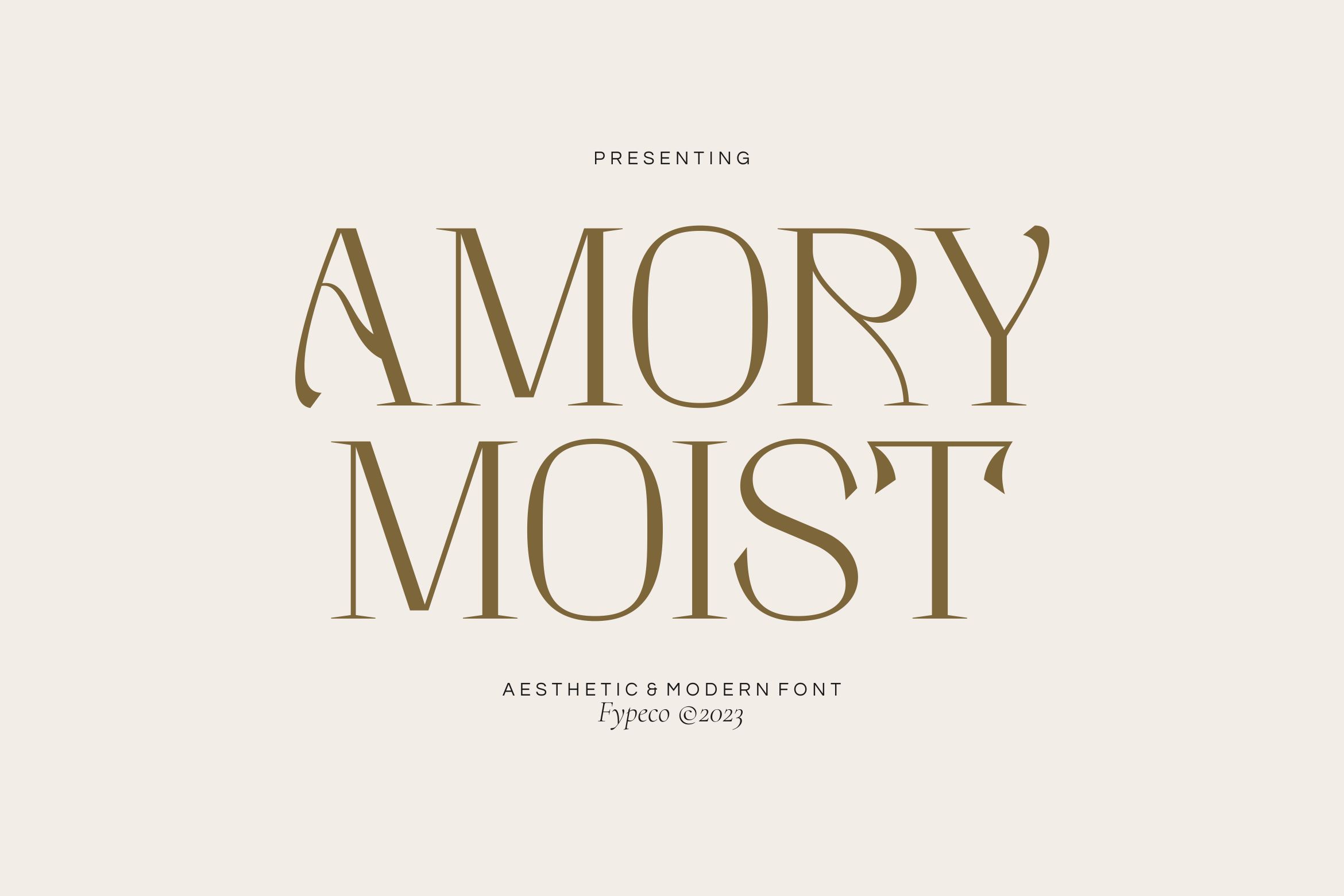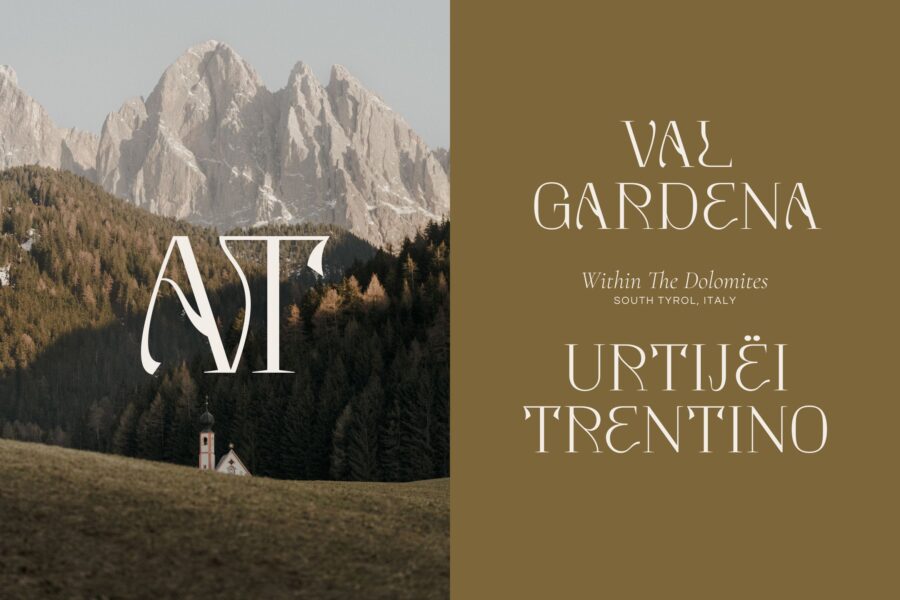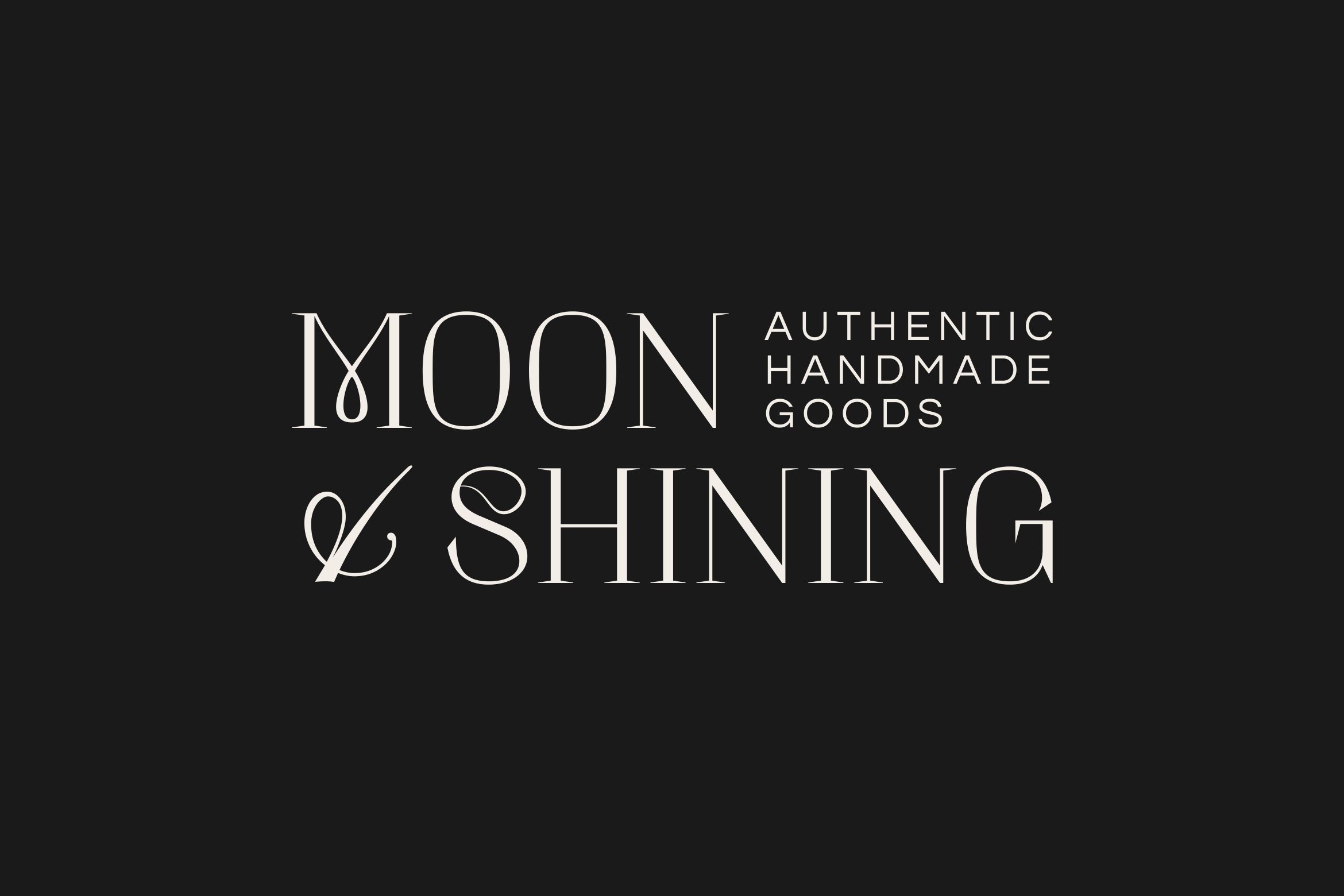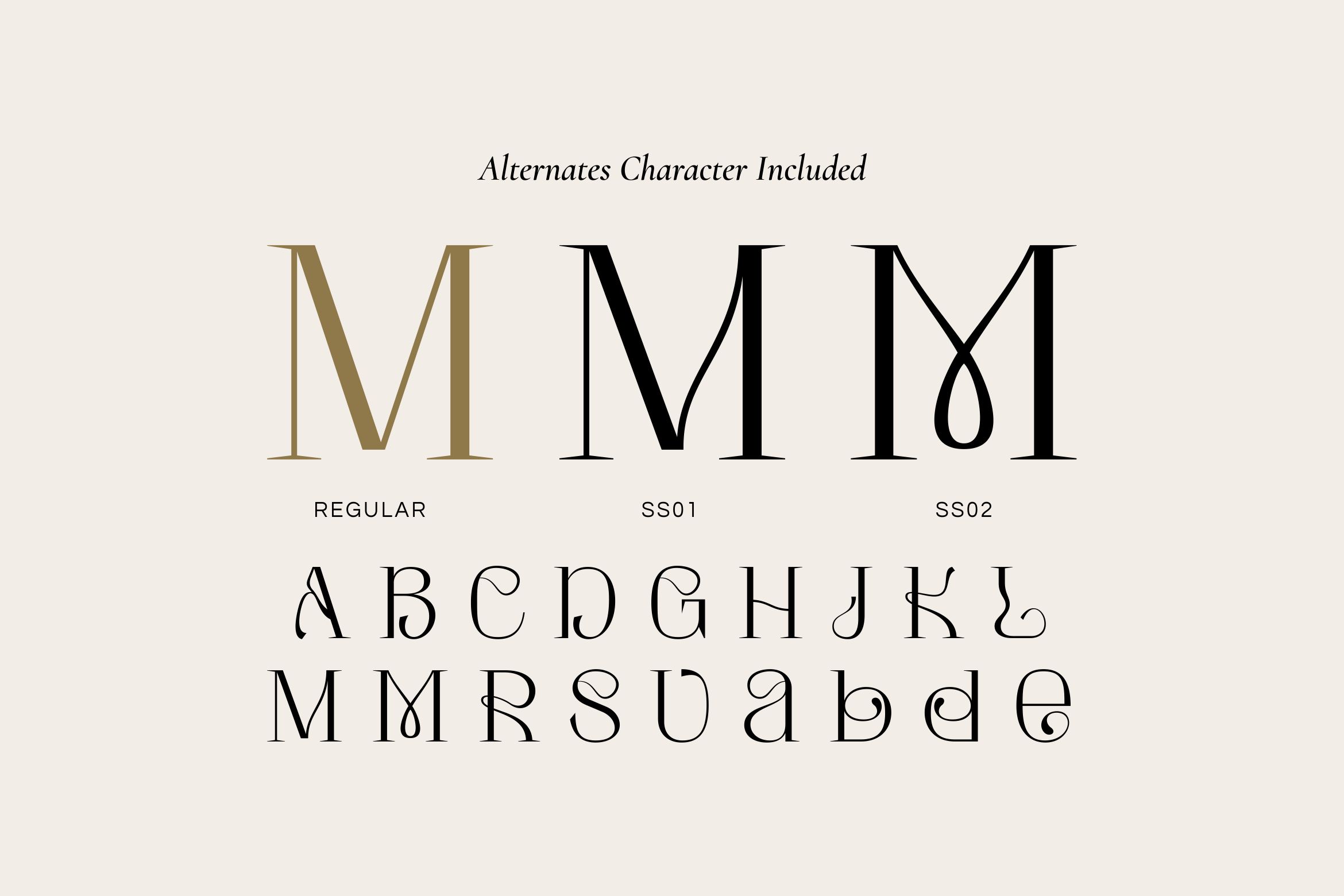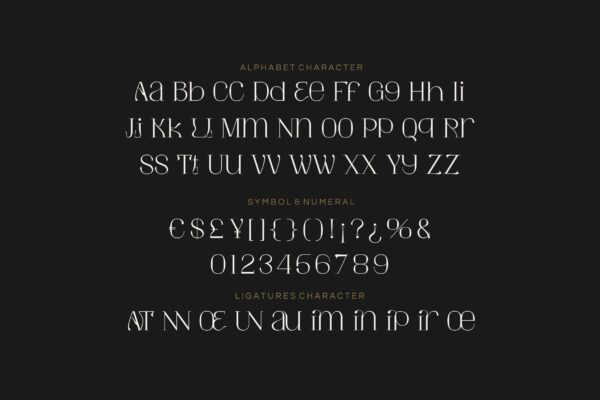
Amory Moist
This font is a modern serif display typeface with elegant proportions and artistic alternates, designed to elevate branding and editorial design with a touch of sophistication. Its thin serifs combined with high contrast strokes create a refined and stylish character, while the unique alternates and ligatures add a luxurious decorative flair. Perfect for magazine headlines, fashion branding, wedding invitations, and upscale packaging, this font balances modern aesthetics with timeless elegance.
With multiple stylistic sets, this typeface offers flexibility for designers who want to craft both minimal and ornamental looks. It works beautifully in logos, book covers, and posters, where strong visual identity is essential. Its graceful details and curated alternates ensure that each composition feels unique, making it a versatile choice for high-end design projects.